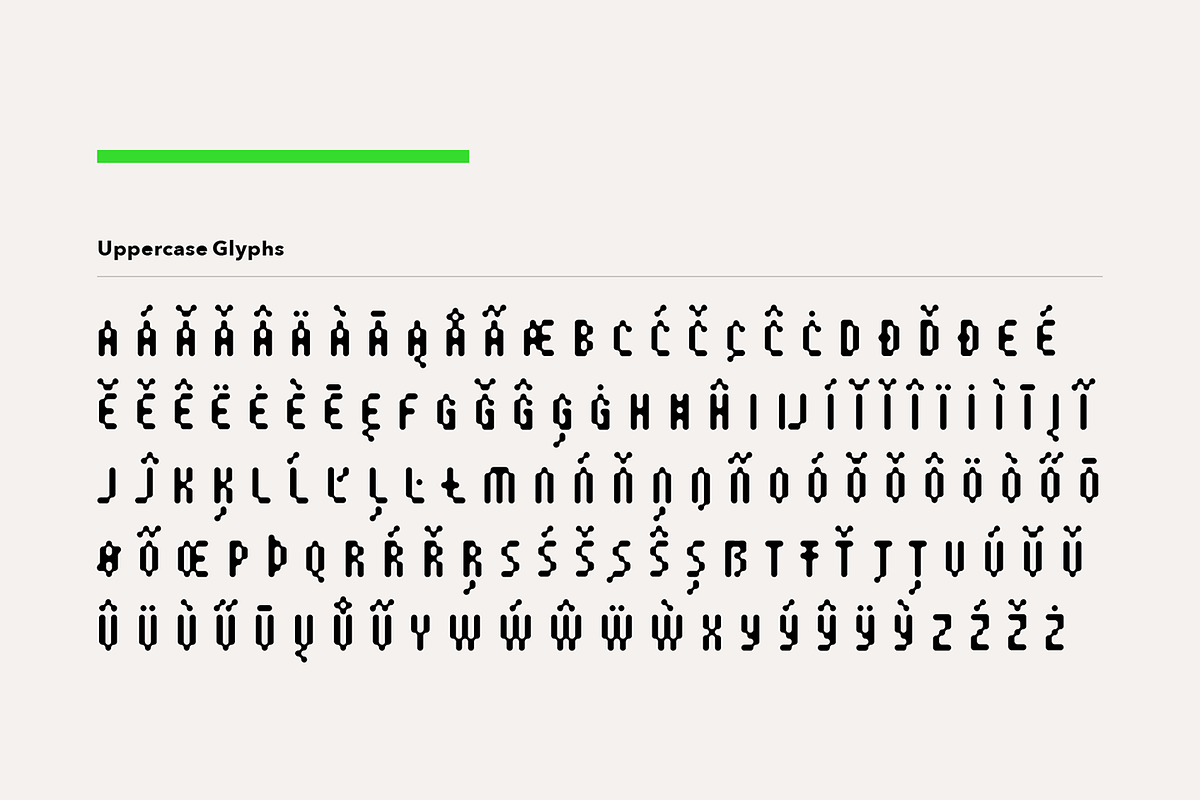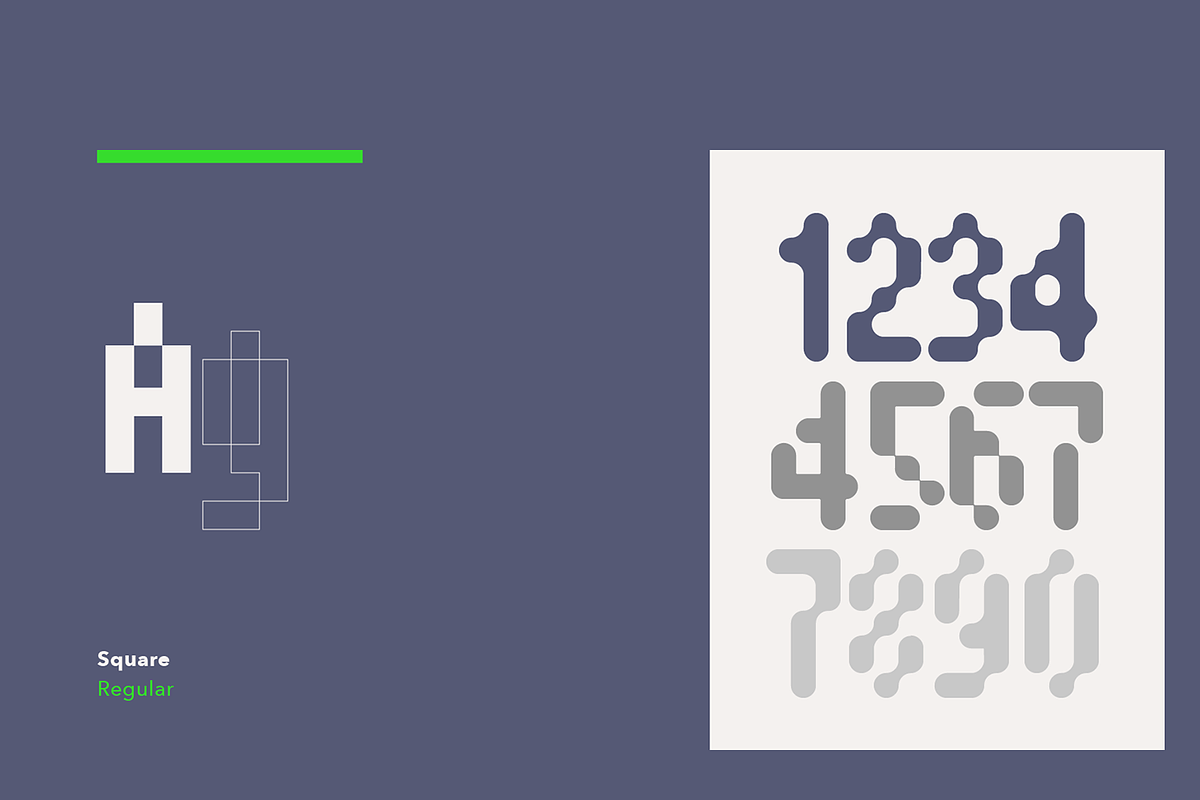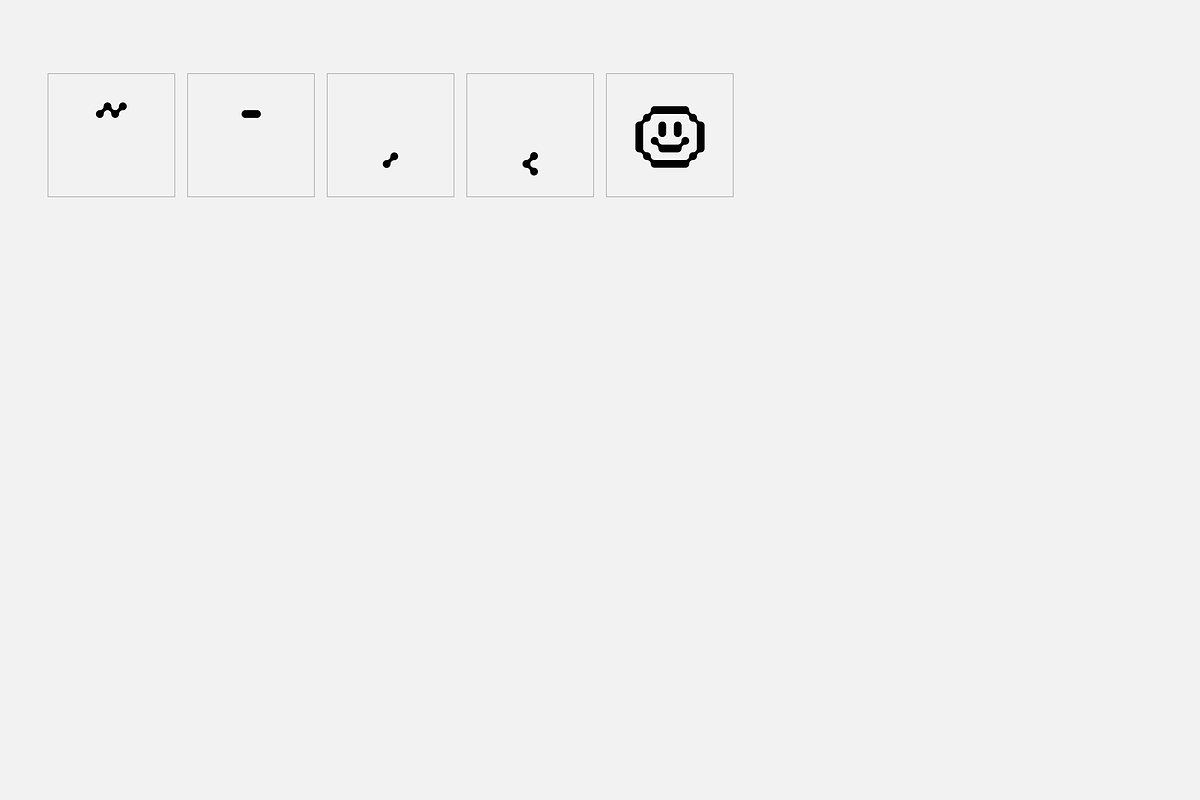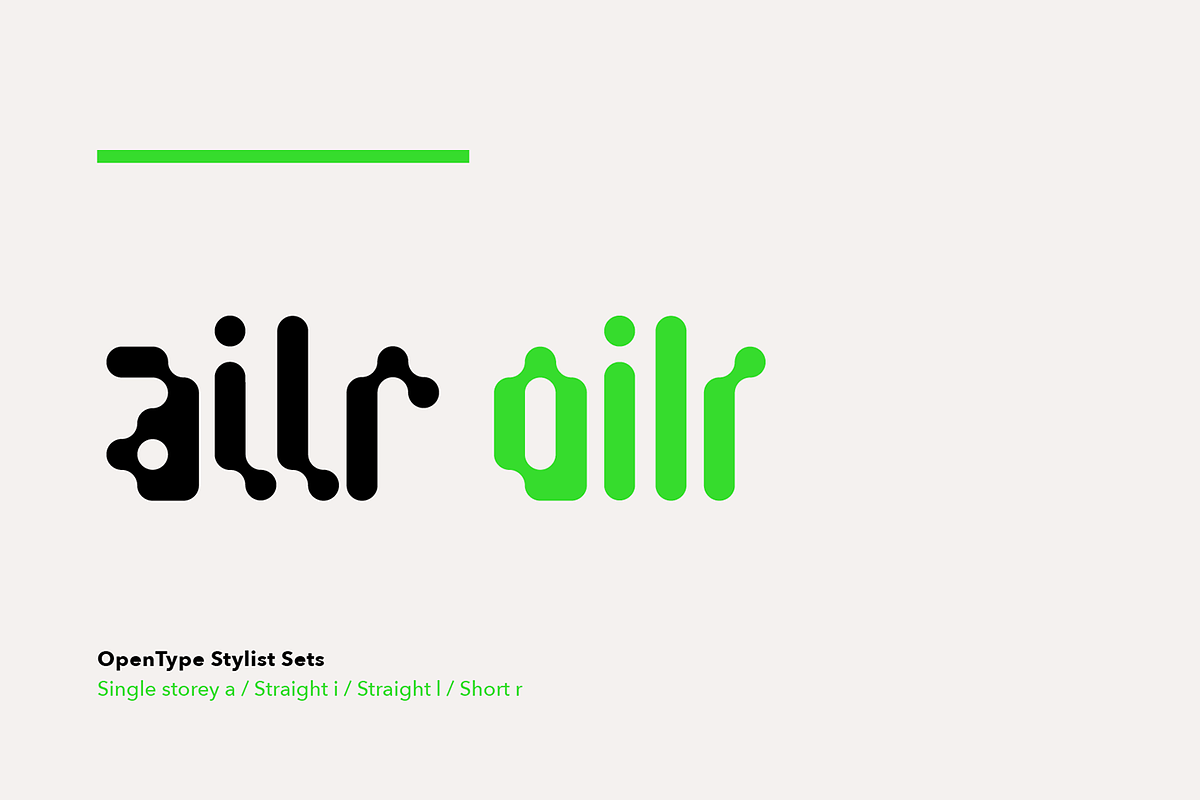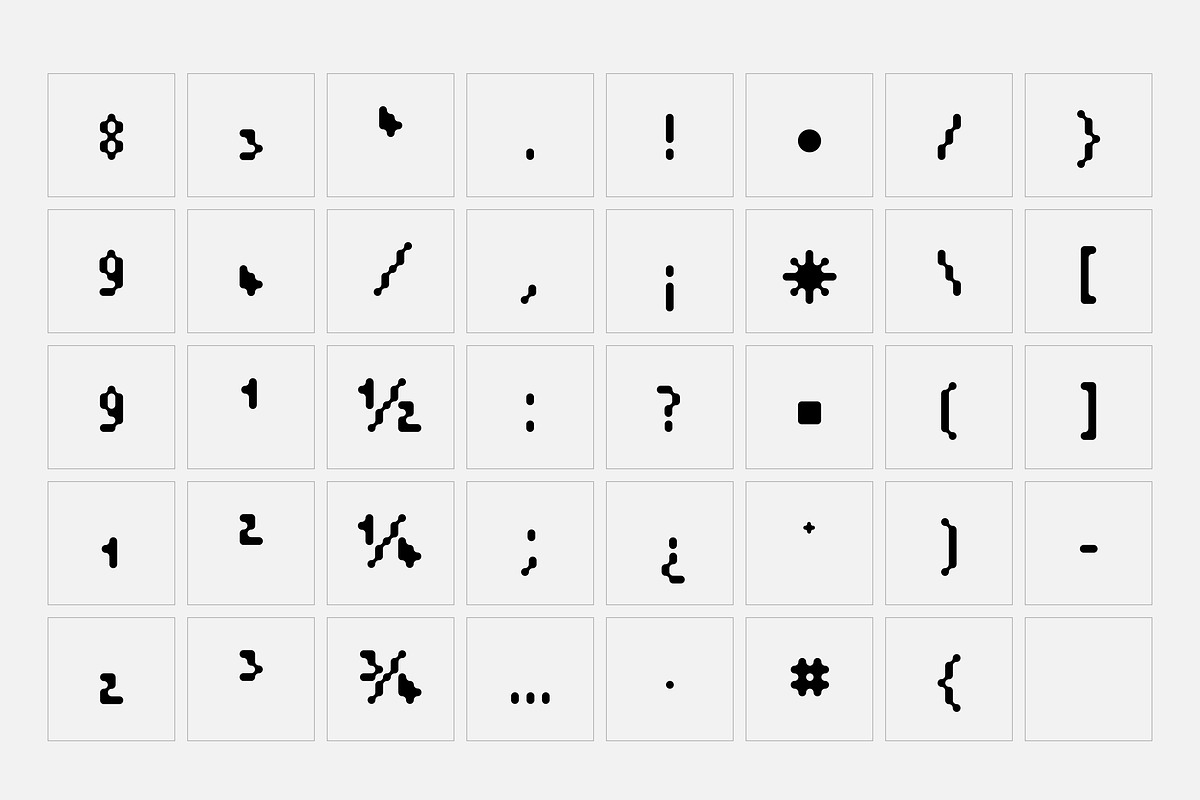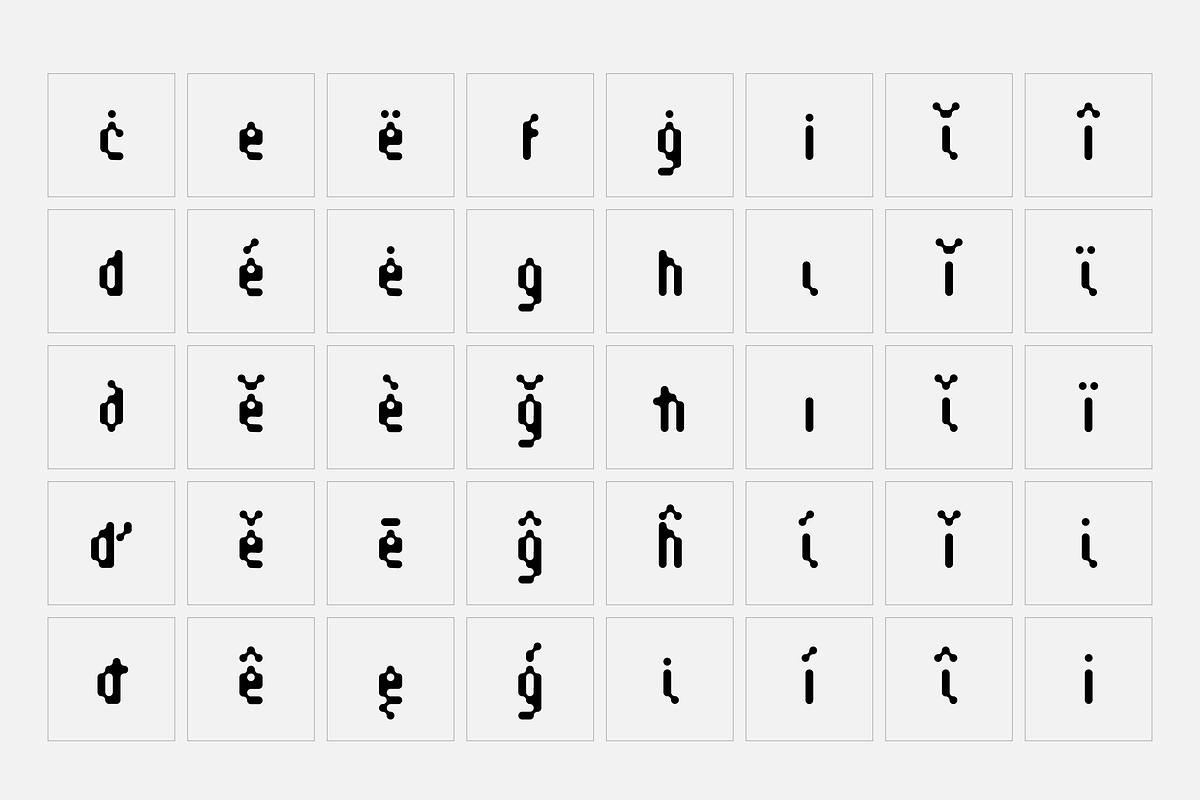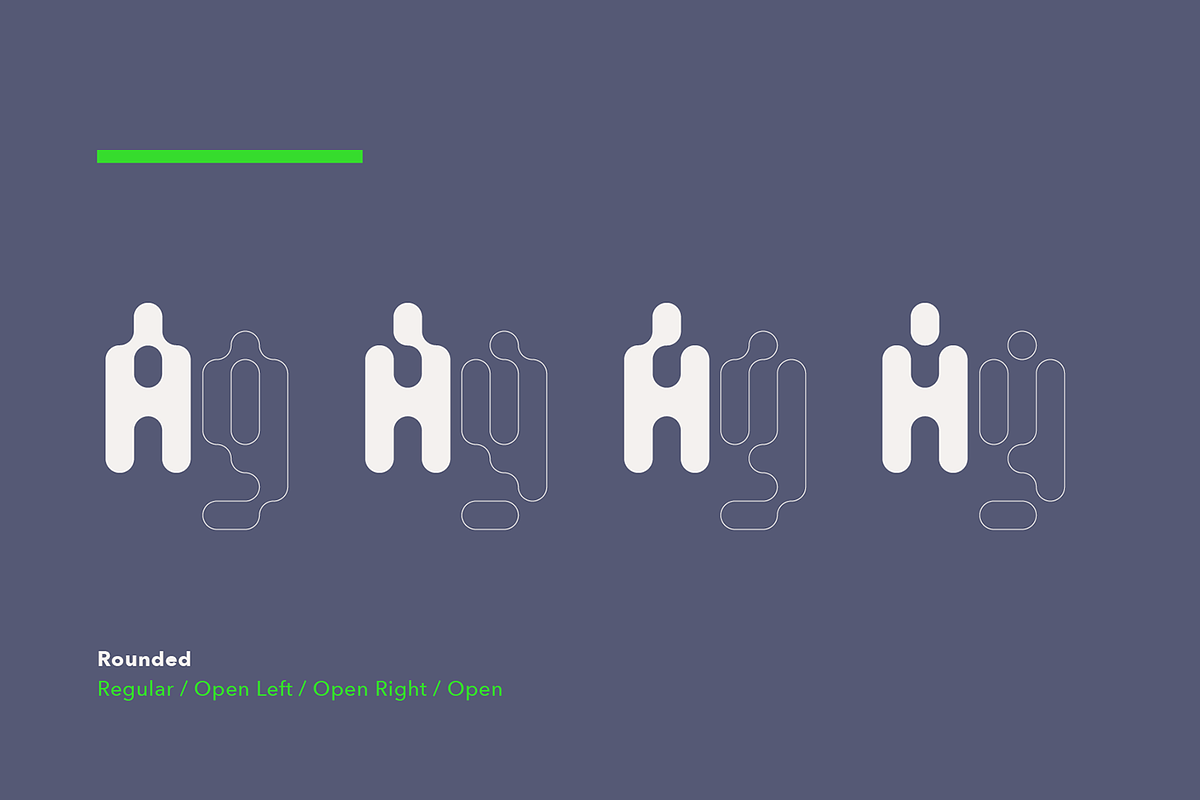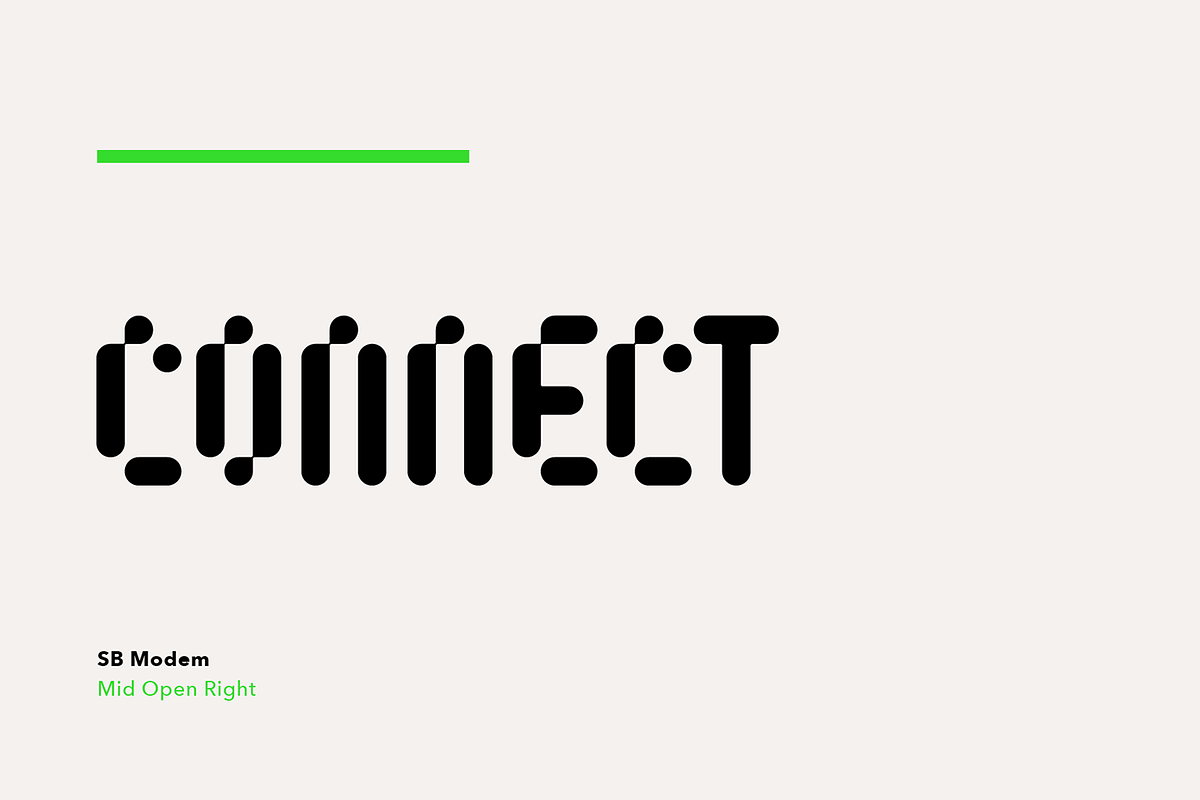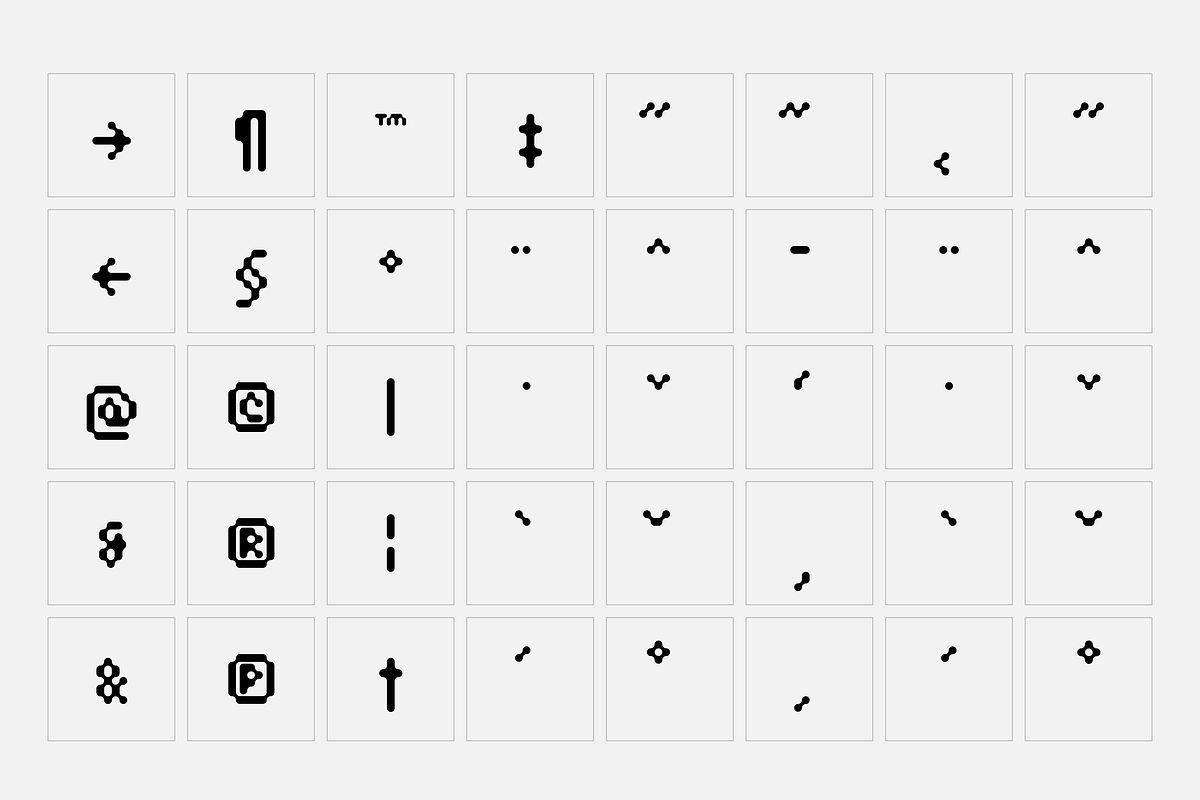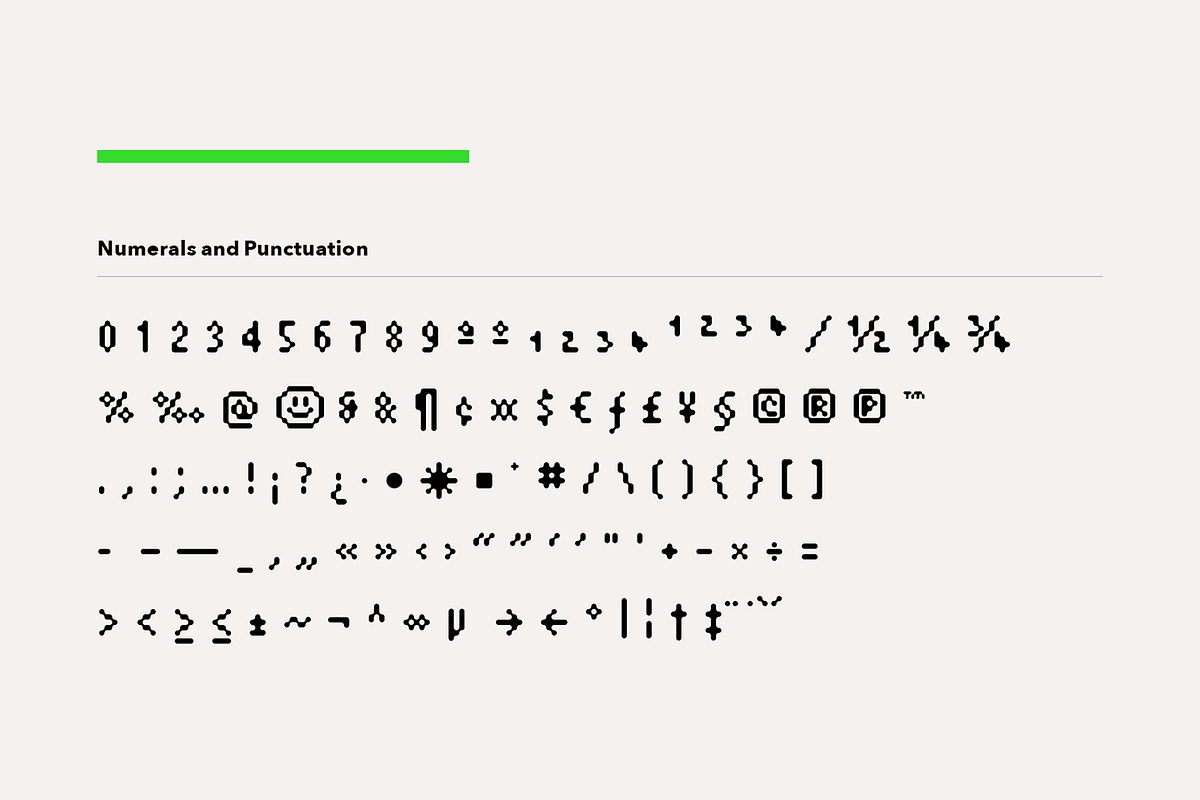
- Stylistic alternatives for single story a, short r, straight l and straight i.
SB Modem’s curved, bubble-like aesthetic is infused with retro-futurism and evokes the space age dreams of what life might be like for humanity in the far future of the year 2000. Although SB Modem has its origins in the 1990s, it owes something to the designers and artists of the 1960s, who developed a visual style that embodied the optimistic hopes people had for the potential of technology to improve peoples’ lives. While it could be categorised as a rounded pixel font, the process that created it wasn’t the usual method. The first versions were created in an early version of Photoshop, with each letter being drawn pixel by pixel at a very low resolution. Then these letters were processed by repeatedly applying blur and increasing the contrast to bring the edges back into focus, before being completely redrawn in Fontographer. The final typeface was named after a device that was cutting edge technology at the time, but which is now also comfortably retro. However, SB Modem’s retro future curves still work nicely for communication and digitally themed projects, even if none of us are living on the moon, yet.